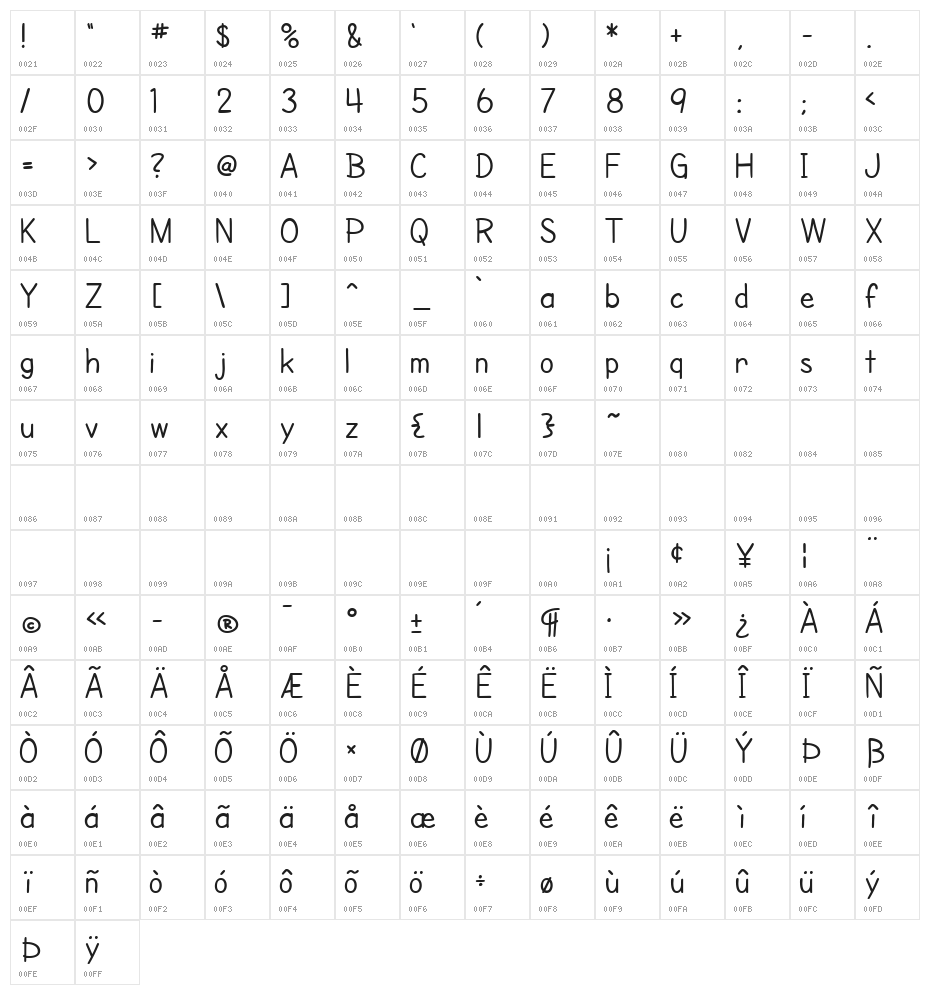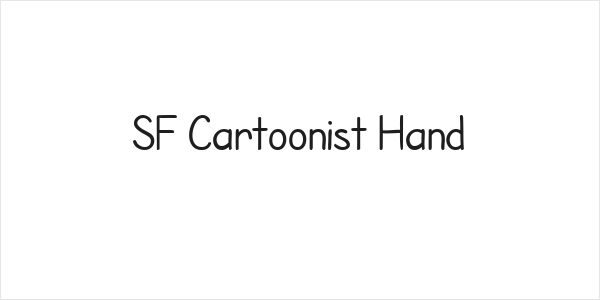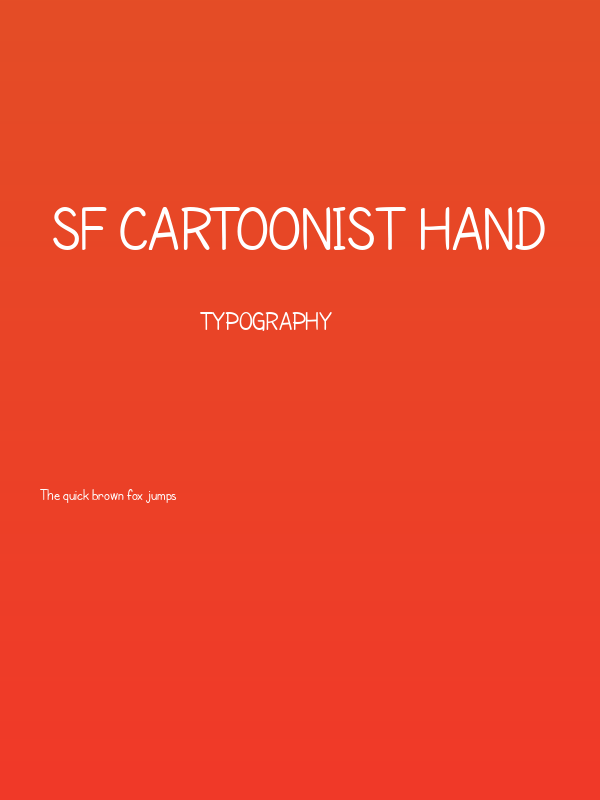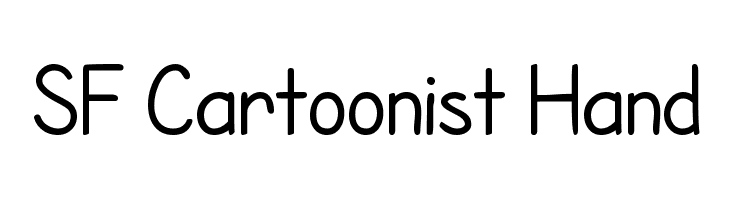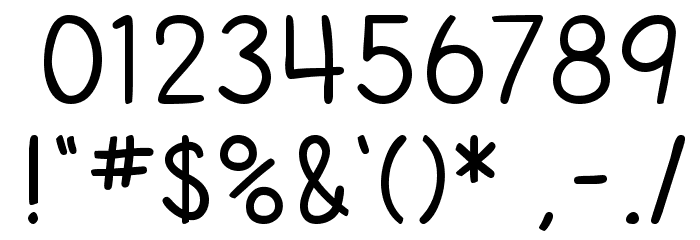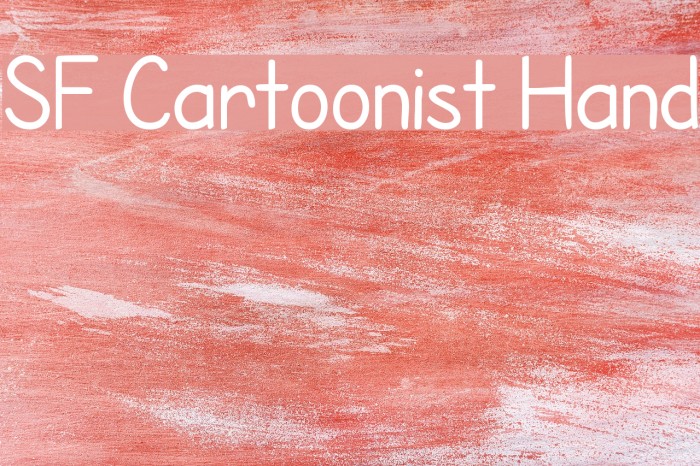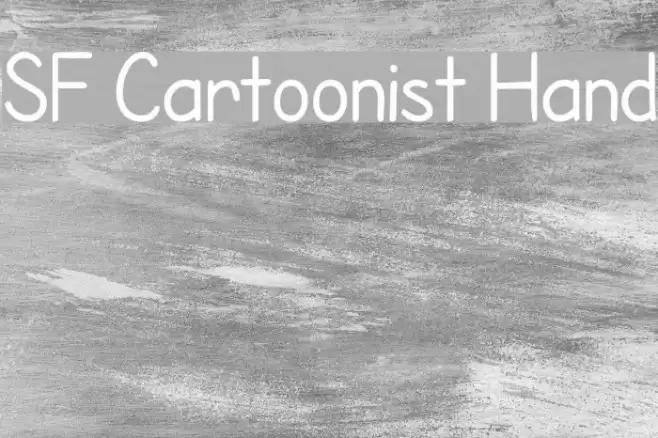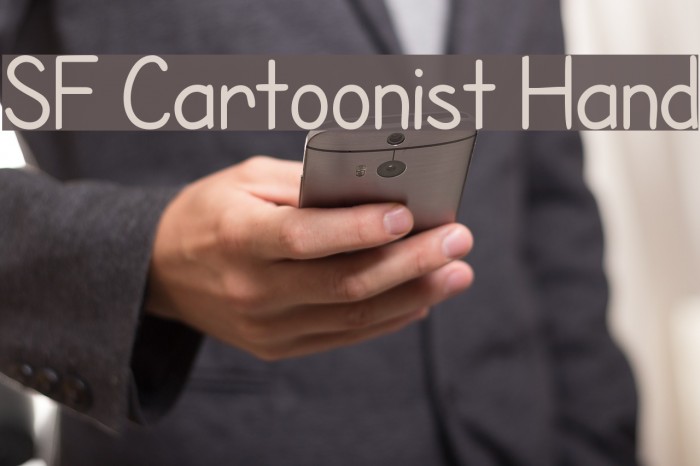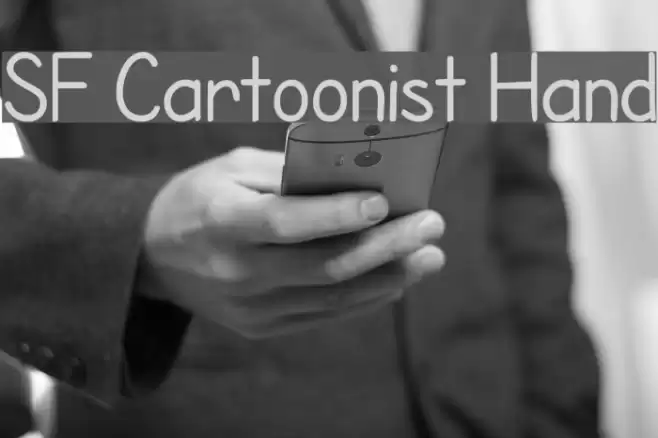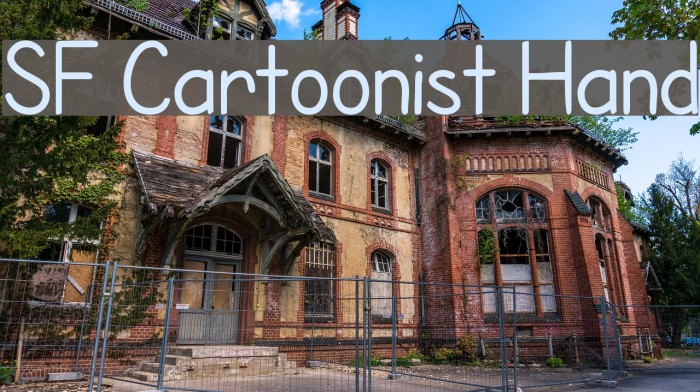
SF Cartoonist Hand Font
| Gesamtstil | Playful |
| Anwendungsfall | Headlines, Logos, Informal Text |
| Vorgeschlagene Projekte | Ideal for children's books, comic strips, playful branding, and informal invitations. |